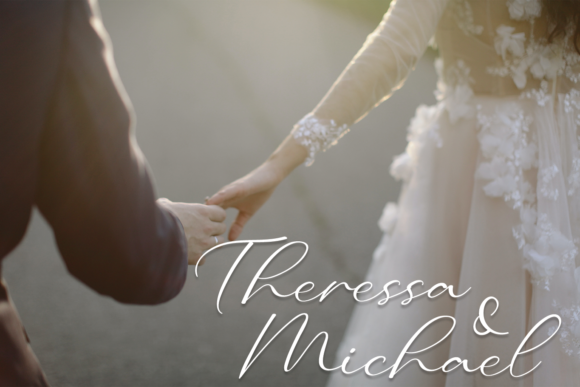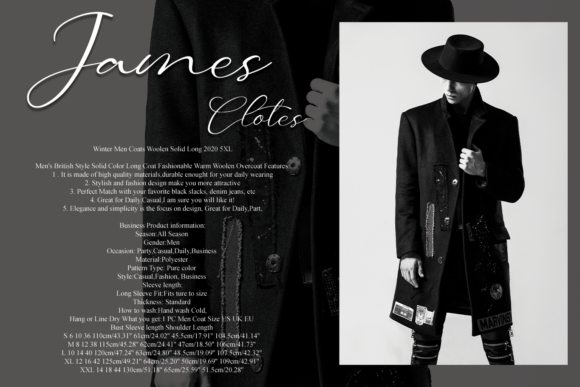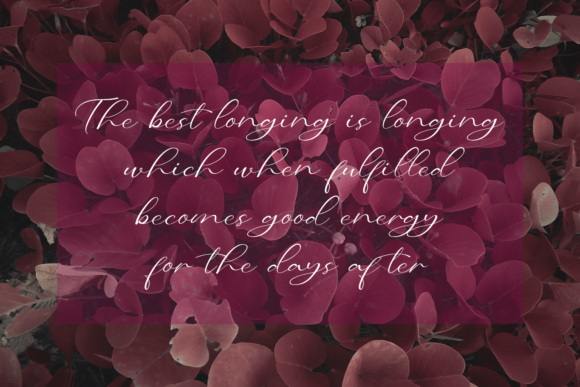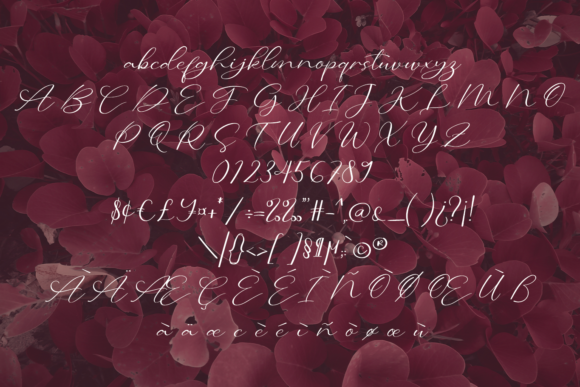
Unleashing the Art of Elegant Design
Have you ever been working on a design project, pouring your heart and soul into it, only to feel like something is missing? The perfect font can make all the difference, transporting your creation from ordinary to extraordinary. It’s in these moments that I turn to the timeless beauty of Calligraphy Font – a typeface that exudes romance and sophistication.
Calligraphy Font is a unique and versatile font that brings a touch of luxury to any design project. Its flowing characters dance along the baseline, creating a sense of movement and elegance that’s hard to resist. Whether you’re designing a wedding invitation, a logo, or a branding package, Calligraphy Font is the perfect choice to add a touch of whimsy and charm.
Key Features of Calligraphy Font
- Unique Characteristics: Features intricate, handwritten lettering with subtle flourishes and connections between letters, giving it a distinctive, elegant look.
Calligraphy Font Review
As a designer, I was excited to try out the Calligraphy Font. While it’s not perfect, I found it to be a great addition to my design toolkit.
- The font’s elegant, cursive design is perfect for adding a touch of sophistication to wedding invitations, greeting cards, and other special occasion designs.
- The font’s high level of customization allows for precise control over letter spacing, size, and color, making it easy to match with other design elements.
- The font is highly legible, even at smaller sizes, making it a great choice for body text in designs where space is limited.
- The font can be quite busy, making it difficult to use in designs with a lot of text or complex layouts.
- The font may not be suitable for digital displays, as it can be difficult to read at small sizes on screens.
- The font’s customization options can be overwhelming for beginners, making it difficult to get started.
Overall, I’m impressed with the Calligraphy Font, but I do think it’s best suited for specific design applications. With a little practice and patience, it’s a great addition to any designer’s toolkit.
Tips for Getting the Most Out of Calligraphy Font
Use calligraphy font to add a touch of elegance and sophistication to your designs.
Experiment with different font sizes, colors, and styles to create unique and eye-catching effects.
Use calligraphy font to highlight important text or create visual interest in your designs.
Wedding invitations and wedding stationery
Special occasion cards and invitations
Brand logos and typography
Editorial and publishing designs
Alternatives to Calligraphy Font for Designers
1. Carolyna Pro
Carolyna Pro is a modern calligraphy font that offers a more elegant and refined look compared to Calligraphy Font. It’s ideal for use in invitations, branding, and packaging design. When to use: Formal events, weddings, and high-end products. Comparison: Carolyna Pro has a more sophisticated feel and is better suited for modern designs.
Great Vibes is a script font that provides a relaxed and casual vibe. It’s perfect for use in social media graphics, blog posts, and advertising materials. When to use: Casual events, social media, and creative projects. Comparison: Great Vibes is more casual and laid-back compared to Calligraphy Font, making it suitable for everyday use.